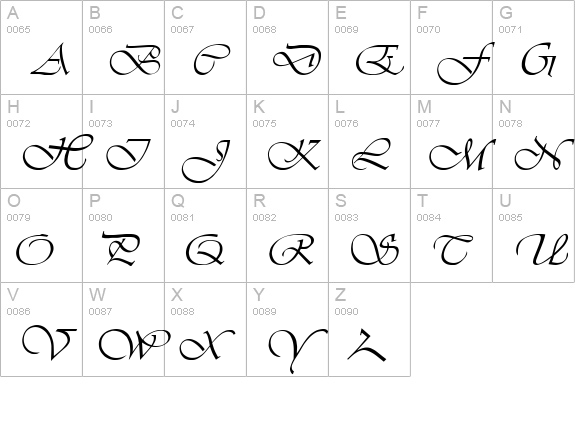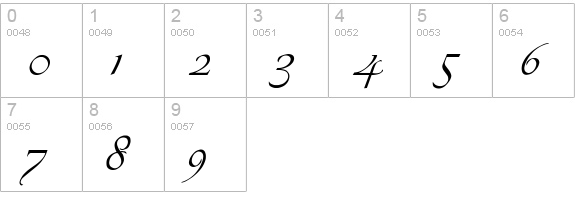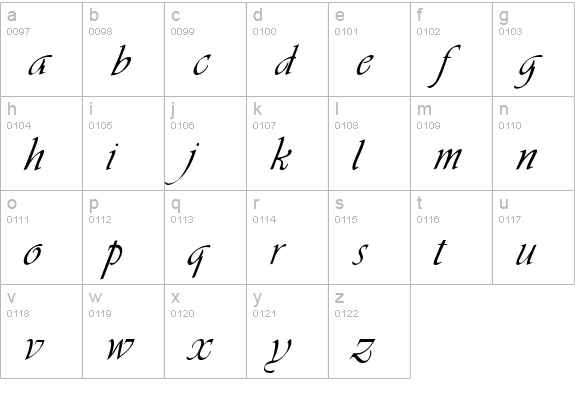
LDS Script Italic Font Details
LDS Script Italic is a distinctive, italic variant in the LDS typeface family \xE2\x80\x94 well suited to design and typography projects.
Introducing LDS Script Italic font, a stunning and elegant typeface that adds a touch of sophistication to any design project. With its delicate and flowing strokes, this font effortlessly captures the beauty of handwritten calligraphy, making it perfect for invitations, greeting cards, logos, and more. What sets LDS Script Italic font apart is not only its impeccable design, but also the fact that it is free for personal and commercial use. Yes, you read that right - this exquisite font is available to download completely free of charge at FontsMarket.com. We believe that great design should be accessible to all, and that's why we are thrilled to offer this font as a gift to our valued users. Whether you're a professional designer looking to add a touch of elegance to your next project or an individual looking to create stunning personal designs, LDS Script Italic font is the perfect choice. Its versatility allows it to adapt to various styles and themes, making it a go-to option for any creative endeavor. The beauty of LDS Script Italic font lies not only in its graceful curves and refined lines, but also in its ability to evoke emotions and convey a sense of sophistication. Its unique italicized style adds a sense of movement and grace to your text, making it a truly captivating choice for any design. With its generous character set, LDS Script Italic font offers a wide range of options for customization. From alternate characters to ligatures and swashes, this font provides endless possibilities to make your designs truly unique. Whether you want to add a flourish to a letter or create a stylish logo, LDS Script Italic font has you covered. So, why wait? Download LDS Script Italic font for free today at FontsMarket.com and embark on a creative journey like no other. Let this exquisite font elevate your designs to new heights and leave a lasting impression on your audience. Don't miss out on this incredible opportunity to add a touch of elegance and sophistication to your projects - get your hands on LDS Script Italic font now and let your creativity soar!